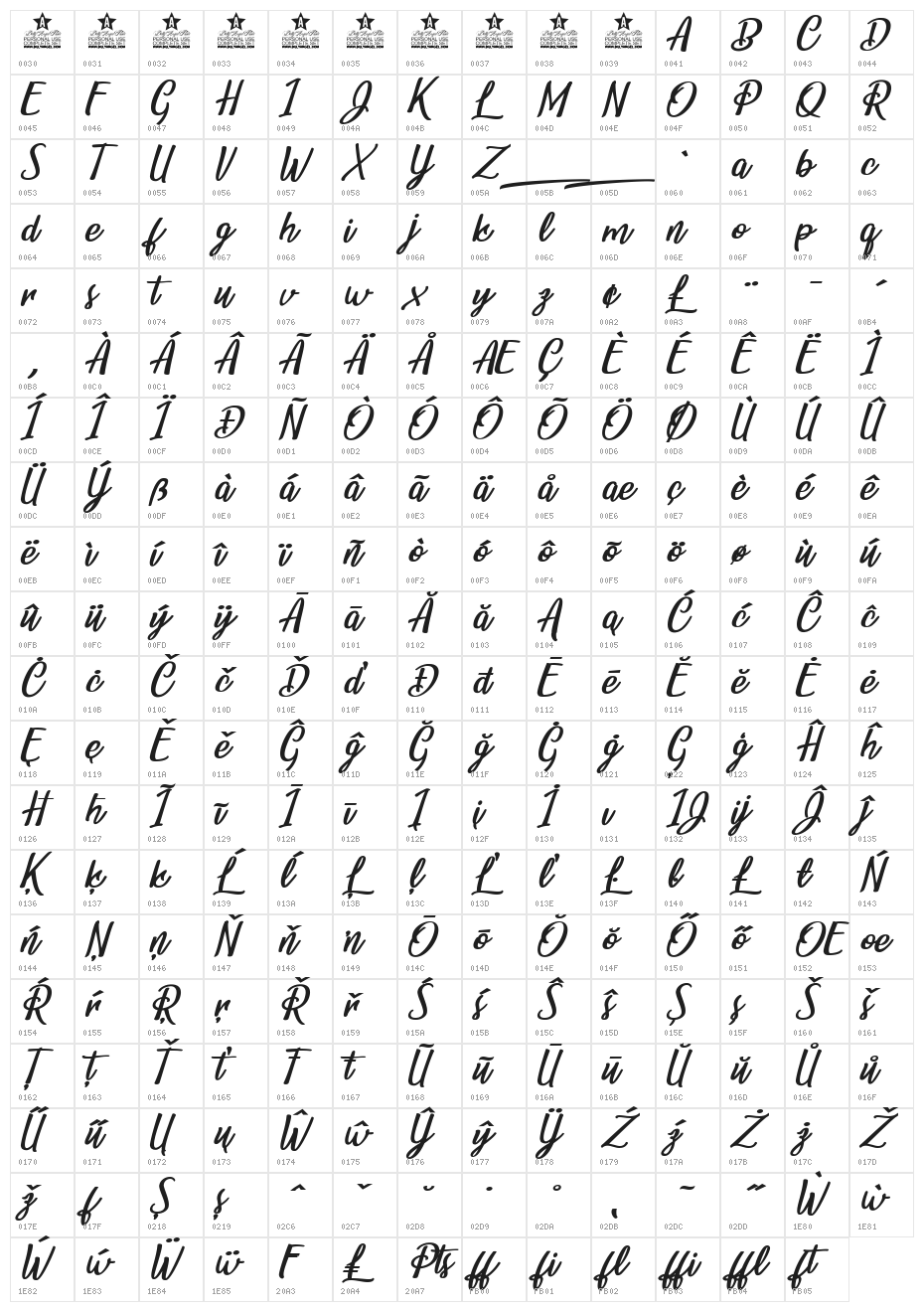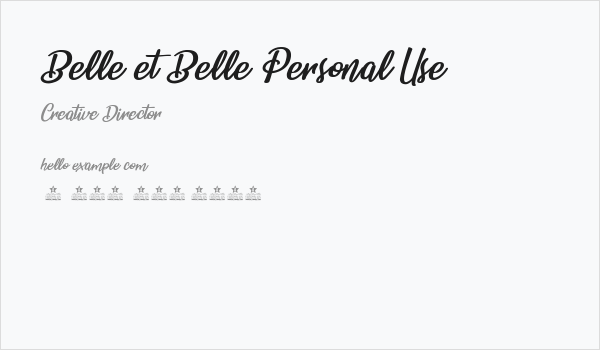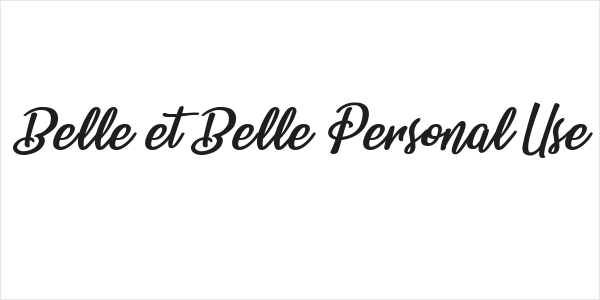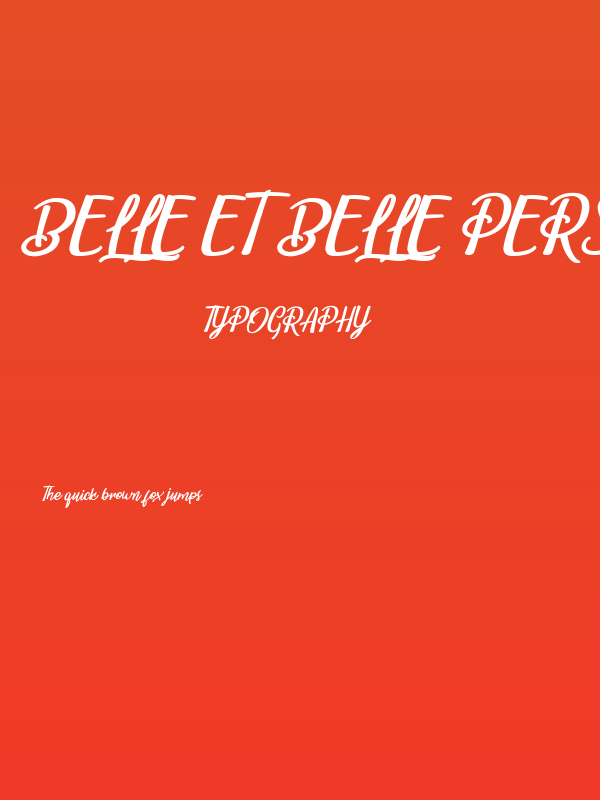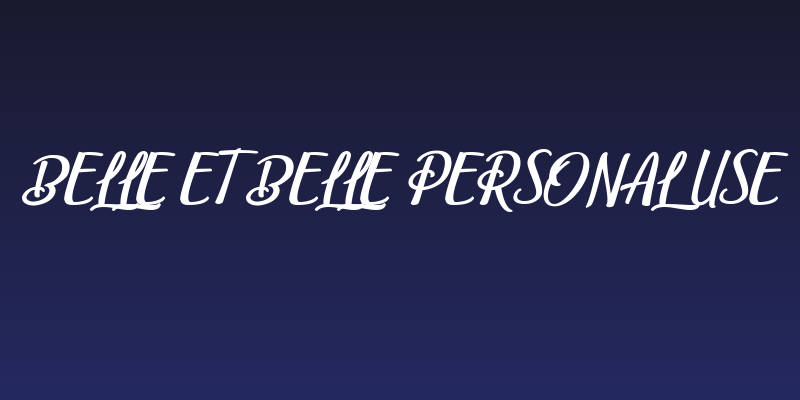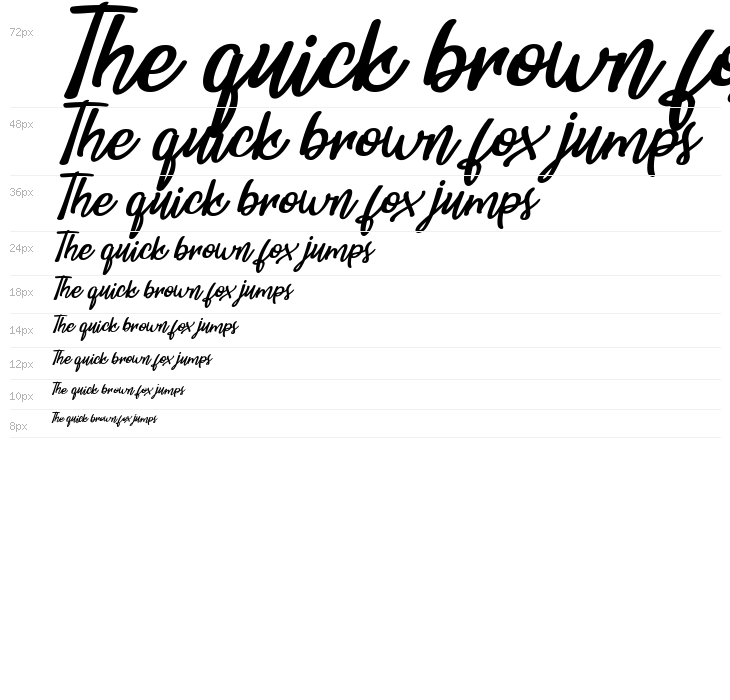
Belle et Belle Personal Use Font
Belle et Belle Personal Use Description
This font features a bold and flowing script style, characterized by its smooth, continuous strokes and elegant curves. The uppercase letters are distinct and slightly larger, adding a sense of grandeur and sophistication. The lowercase letters maintain a consistent flow, enhancing readability while preserving the artistic flair. The numbers and special characters are designed to complement the overall script style, ensuring a cohesive look across all text elements. This font exudes a sense of elegance and creativity, making it suitable for a variety of design projects.
Overall StyleElegant
Use CaseLogos, Invitations, Decorative text
Proposed ProjectsIdeal for wedding invitations, branding, greeting cards, and elegant signage.